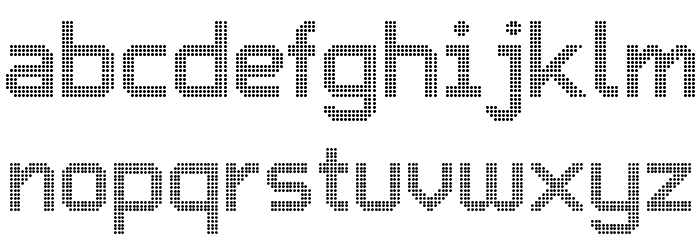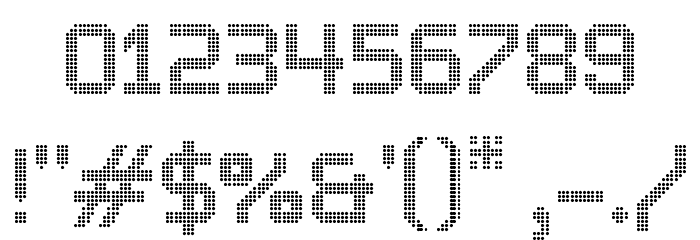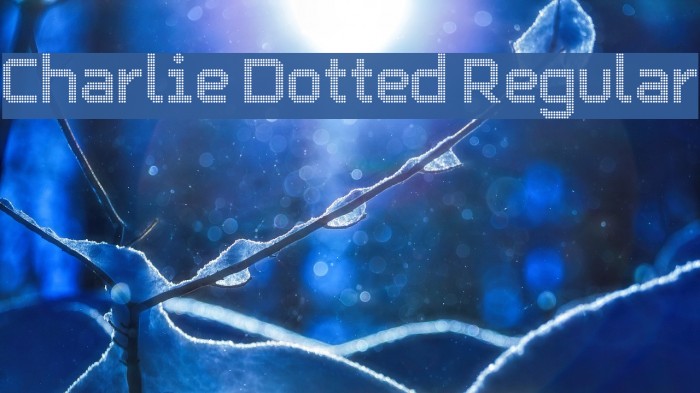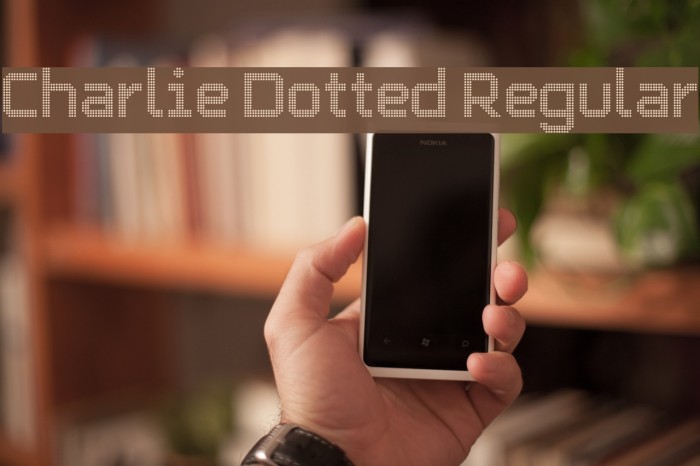
Charlie Dotted Regular Font
This font features a unique dotted design where each character is constructed from a series of evenly spaced dots, creating a pixelated effect. The uppercase and lowercase letters maintain a consistent structure, with rounded edges and uniform dot placement, giving it a cohesive and modern appearance. The numerals and special characters follow the same dotted pattern, ensuring visual harmony across all elements. This font's playful yet structured style makes it suitable for creative and tech-oriented projects.
A modern, dotted font with a pixelated effect, ideal for creative projects.
- Proposed Projects: Ideal for digital art, tech-themed designs, posters, and playful branding.